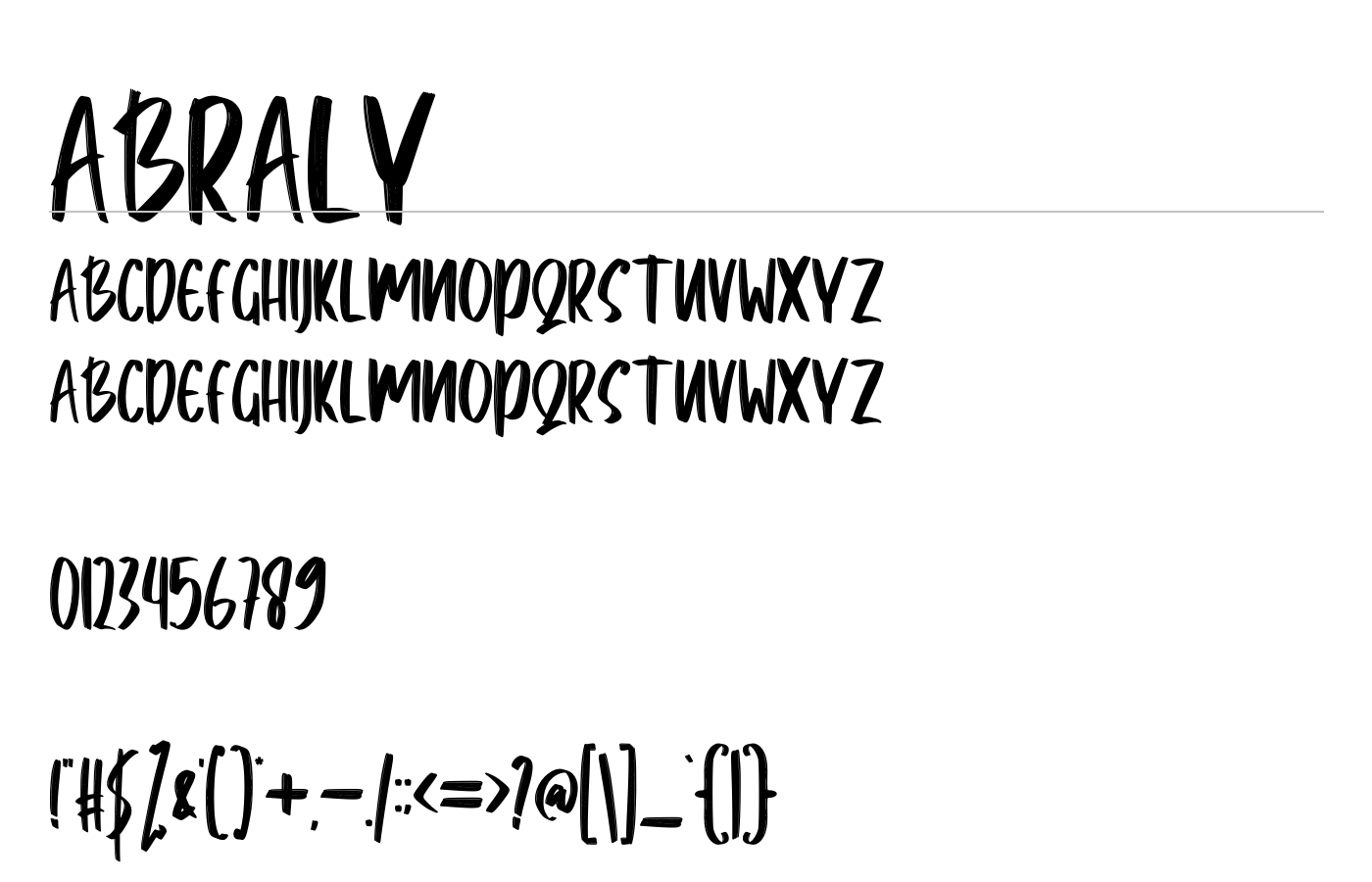
Abraly is a bold, playful handwritten font with tall, narrow letterforms that create a lively and energetic impression. Its irregular strokes and casual style make it perfect for creative projects, eye-catching headlines, and brands that want to convey a fun and informal vibe. This font works well in posters, social media graphics, and children’s products where a friendly, personal touch is needed.
Abraly Font